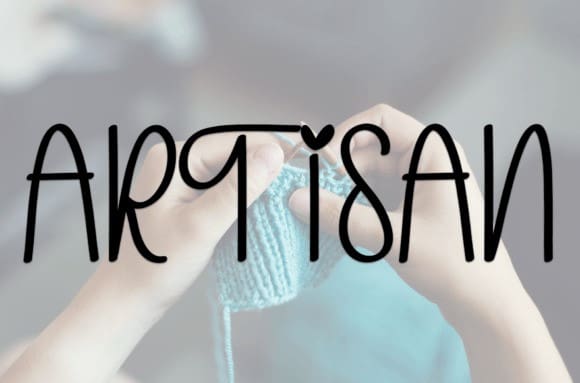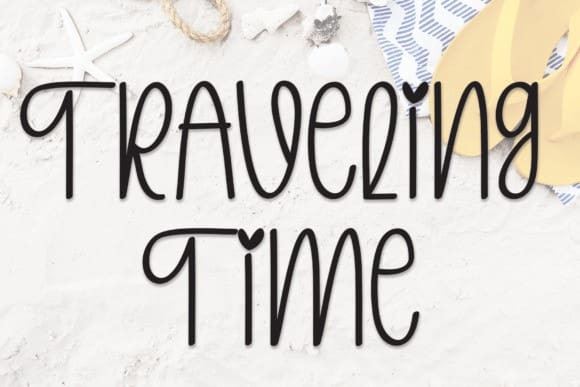
Traveling Time Font
Traveling Time Font is a sweet and friendly handwritten font. Fun and relaxed, this font is ideal for writing wedding invitations, cards, or any other design that might need a lovely touch!